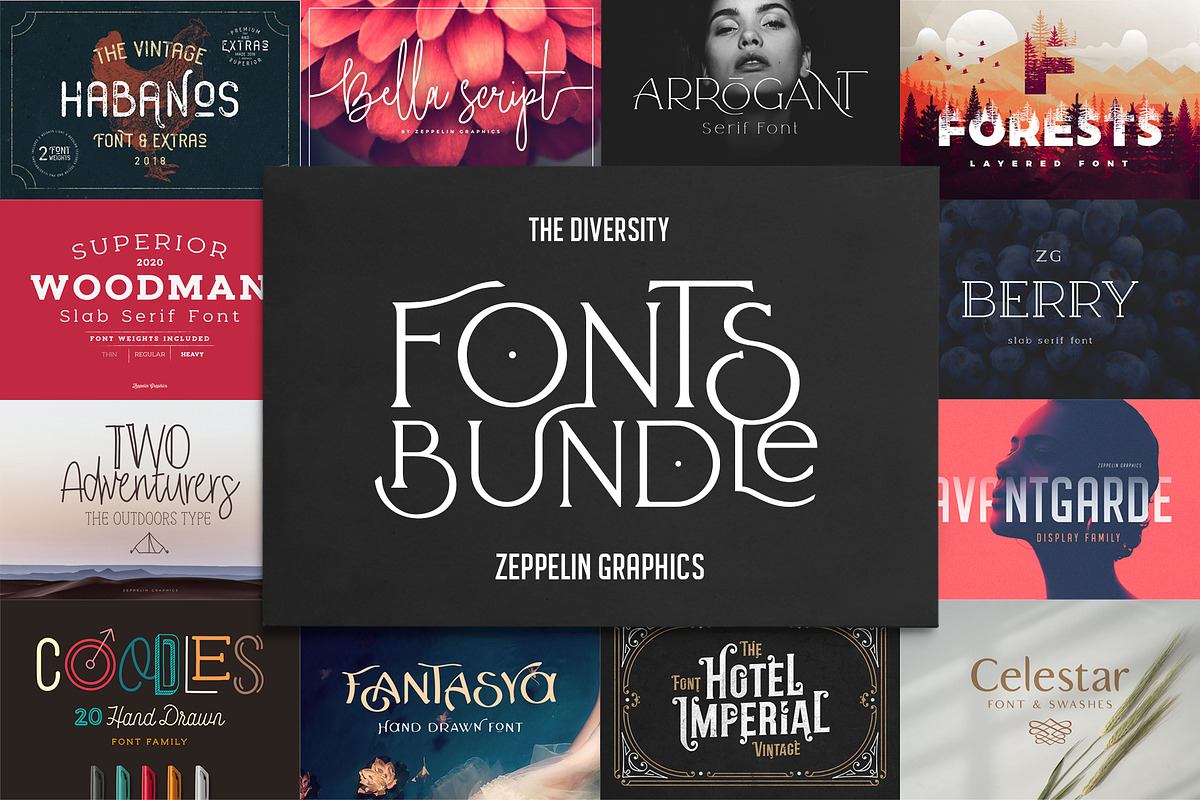
You must purchase these fonts for commercial use. However, you can download Diversity Fonts Bundle - Fonts Free Download for testing purposes. The Diversity Fonts Bundle offers a curated collection of fonts, each designed to bring unique character and versatility to your projects. Featuring a range of type styles, from modern sans-serifs to elegant scripts and vintage-inspired fonts, this bundle is perfect for a variety of design needs including branding, logos, social media graphics, packaging, and more.
With multiple font options in the bundle, you can easily mix and match to create dynamic typography compositions. Whether you're looking for a bold display font, a delicate handwritten script, or a clean, professional typeface, the Diversity Fonts Bundle offers everything you need to elevate your design projects.